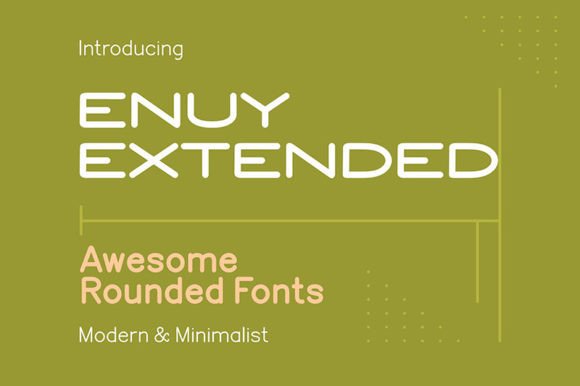
Enuy Extended Font
Step into the realm of contemporary design with Enuy Extended Font, a modern sans serif font crafted to ignite imagination and bring life to your digital creations. This masterpiece from Imagi Factory is not just a font; it's an extension of your creativity, an artistic tool that empowers you to make a statement.
With its striking presence and unconventional charm, Enuy Extended Font is the perfect choice for digital media and advertising. Its clean lines and dynamic curves dance harmoniously to create a visually captivating experience, ensuring your designs stand out from the crowd.
Unleash your imagination and let Enuy Extended Font add a touch of individuality to your projects. Whether you're crafting logos, brochures, website designs, or eye-catching social media graphics, this font will infuse your work with personality and style.
Enuy Extended Font is not just visually stunning; it's also incredibly versatile, adapting effortlessly to a wide range of design projects. From modern illustrations to elegant invitations, this font's versatility knows no bounds.
Join the creative revolution and embrace the power of Enuy Extended Font. Let your designs shine with a font that speaks volumes, a font that captures the essence of contemporary style and innovation.